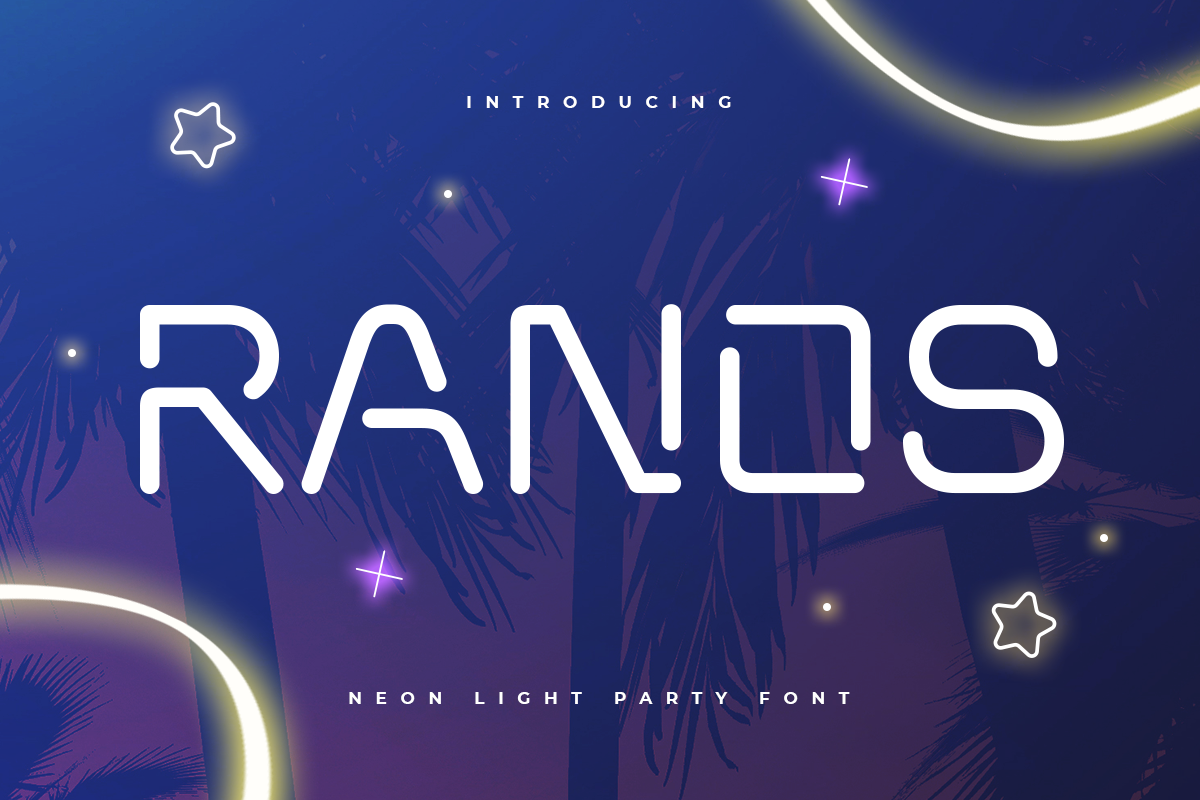
RANOS - Neon Light Party Font
Create electrifying designs with RANOS, the ultimate neon-inspired display font perfect for parties and standout typography. This unique sans serif typeface brings modern flair and distinctive style to your headlines, titles, and any typography that needs to make a bold statement. Specially crafted with a contemporary feel, RANOS transforms ordinary text into eye-catching design elements that showcase your creative vision. RANOS Neon Light Party Font includes: Creative variations for unique styl...